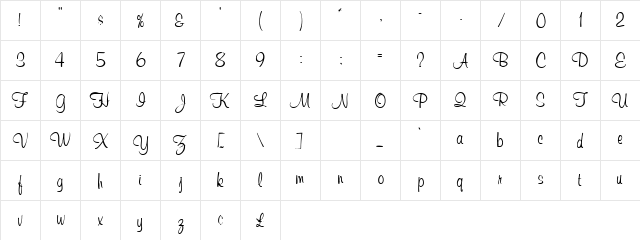
Redon Normal Font Preview
Redon Normal
Redon Normal Font Details
Design Context for Redon Typeface
Redon offers clean, dependable letterforms without strong stylistic allegiance, making it a practical choice for designers who need flexibility.